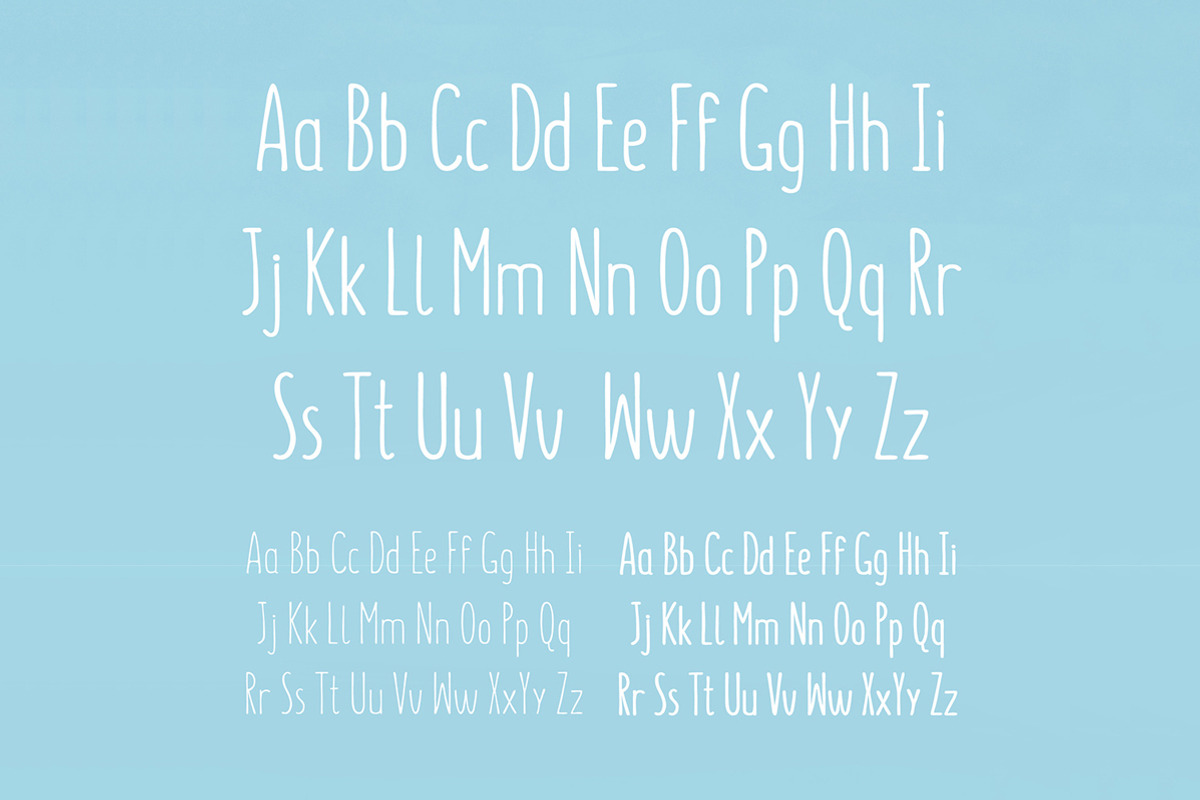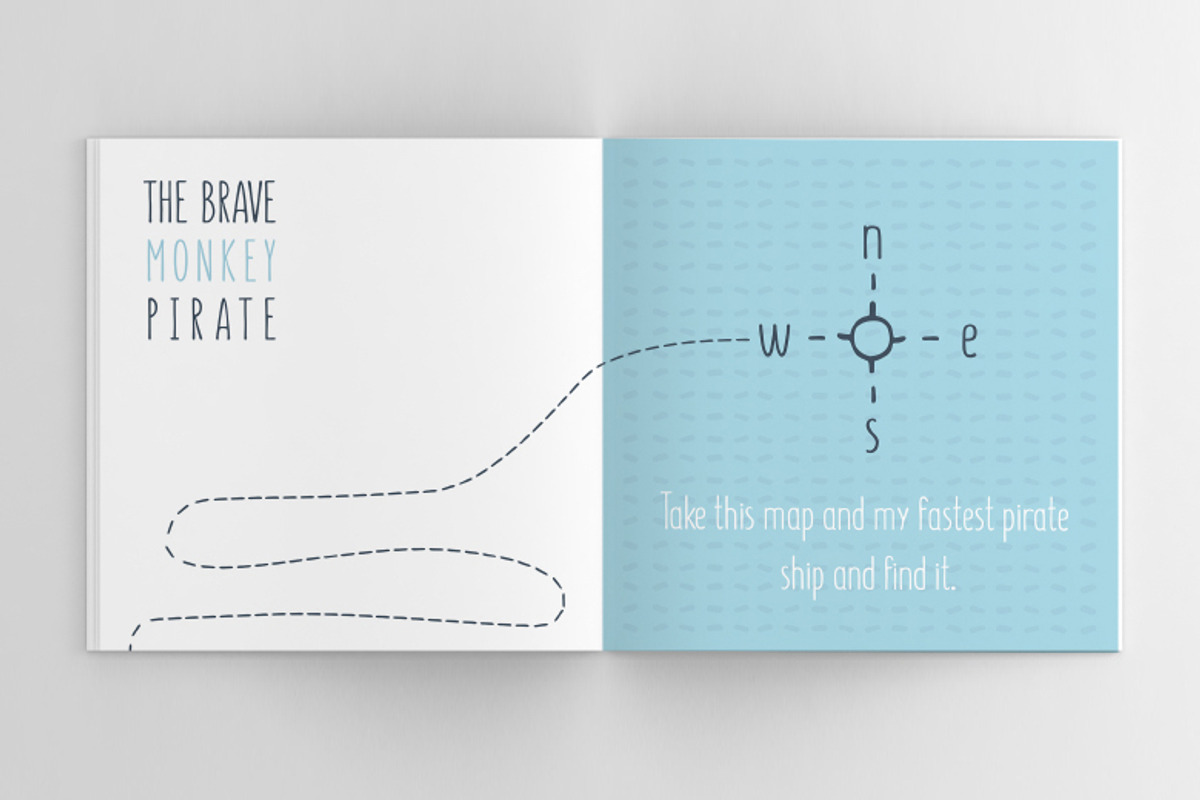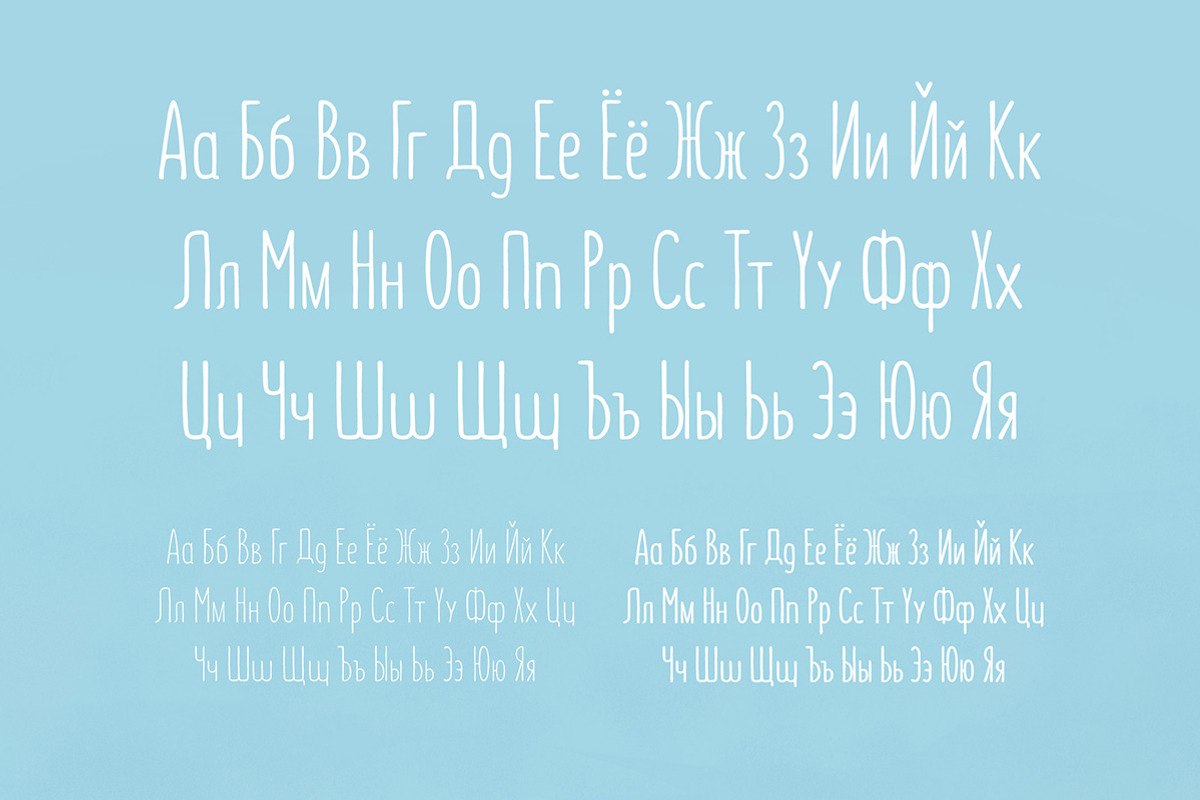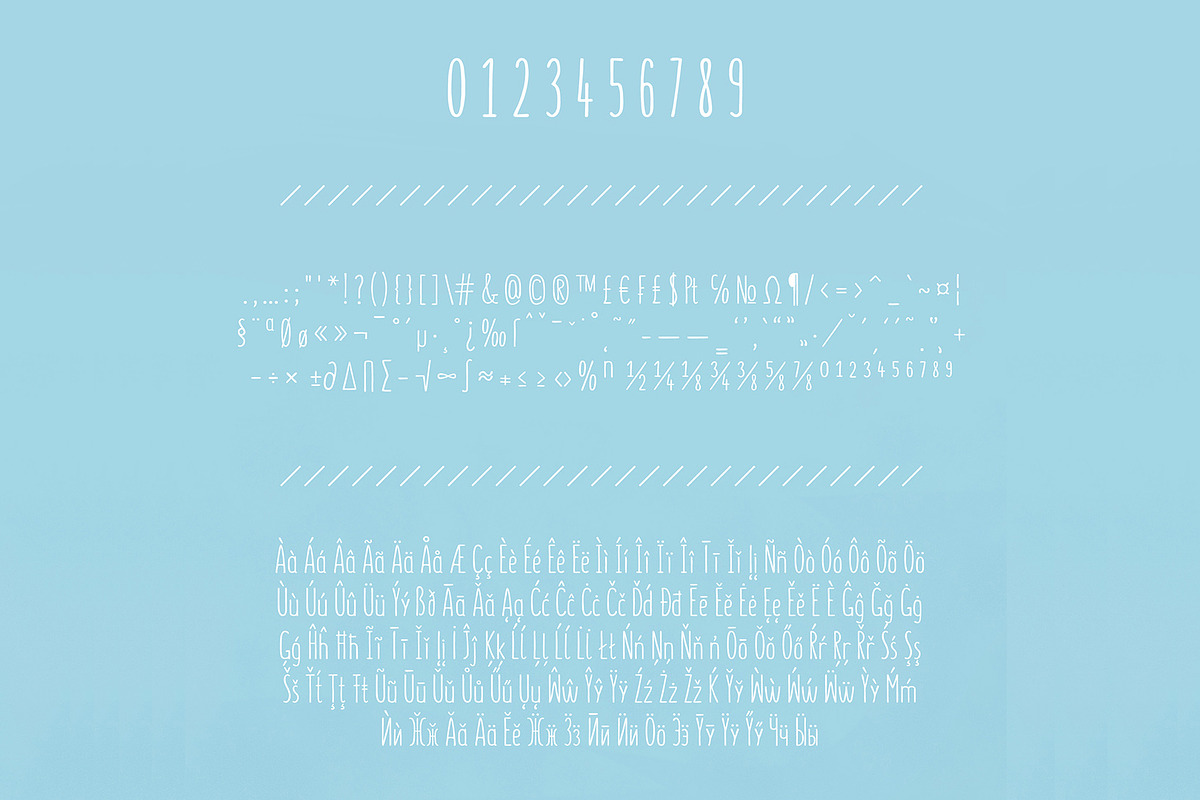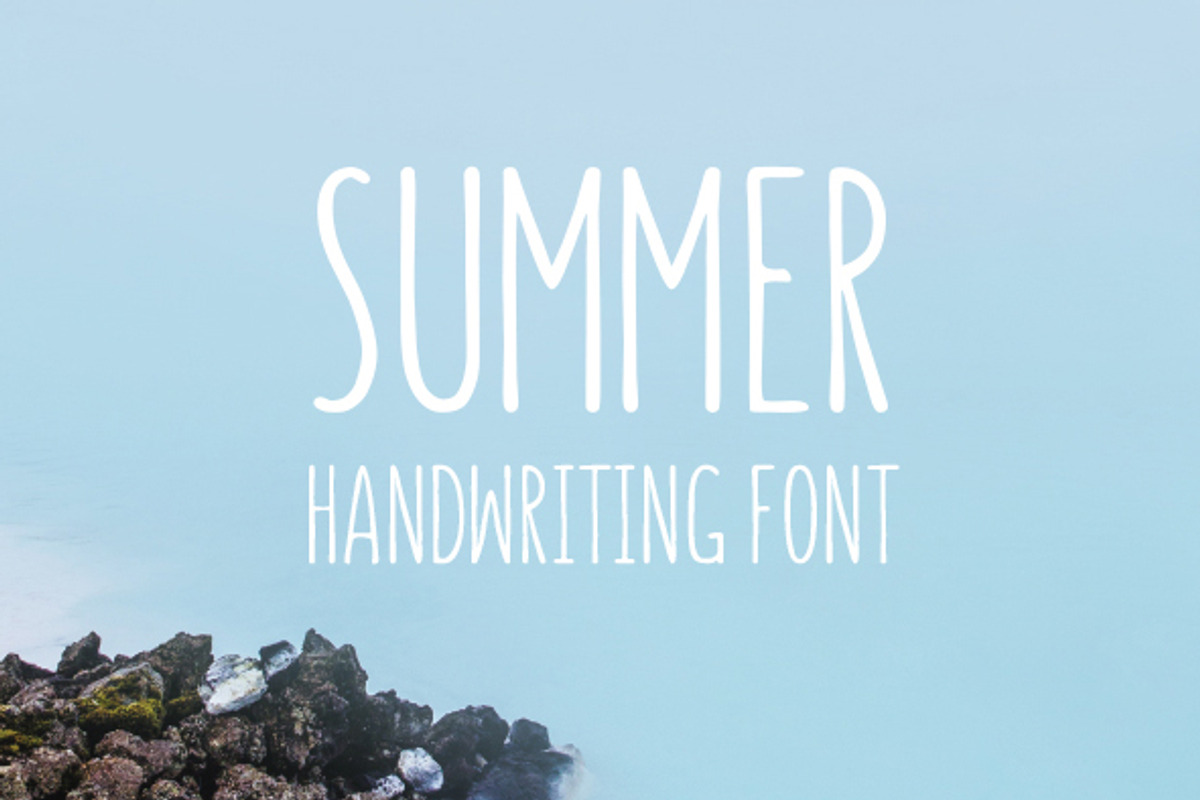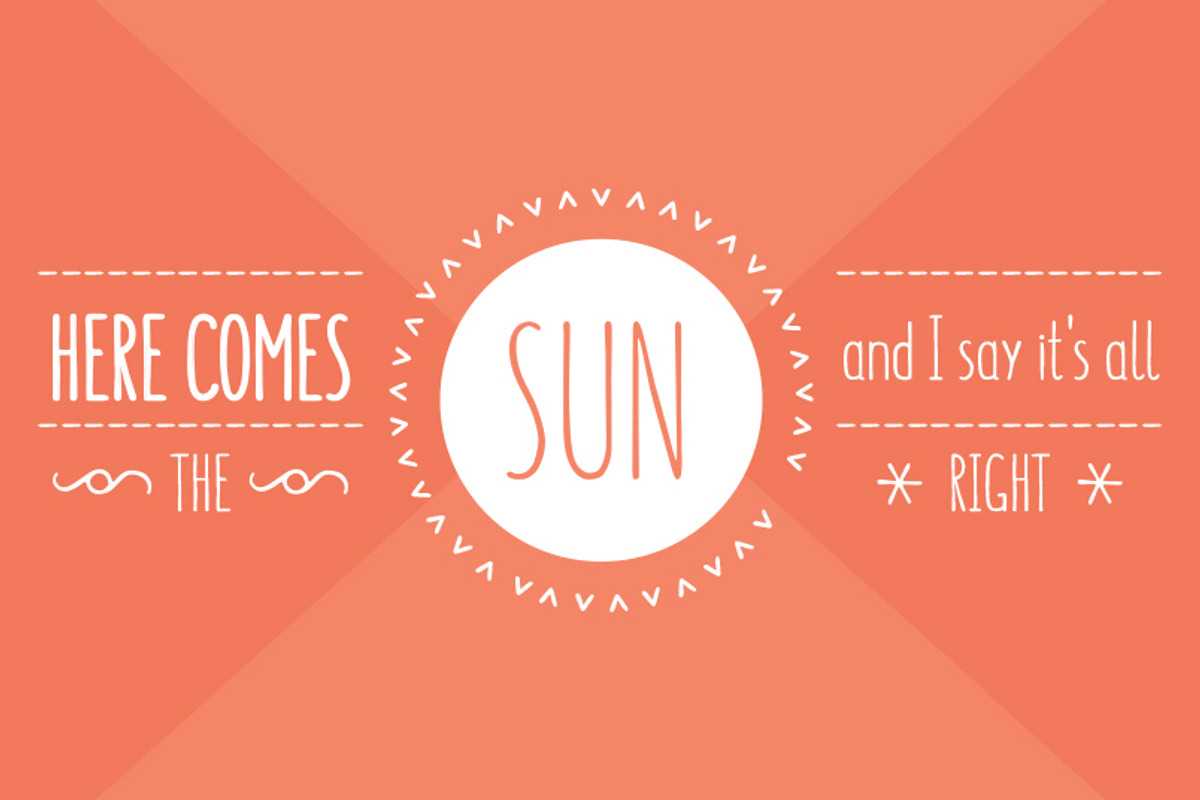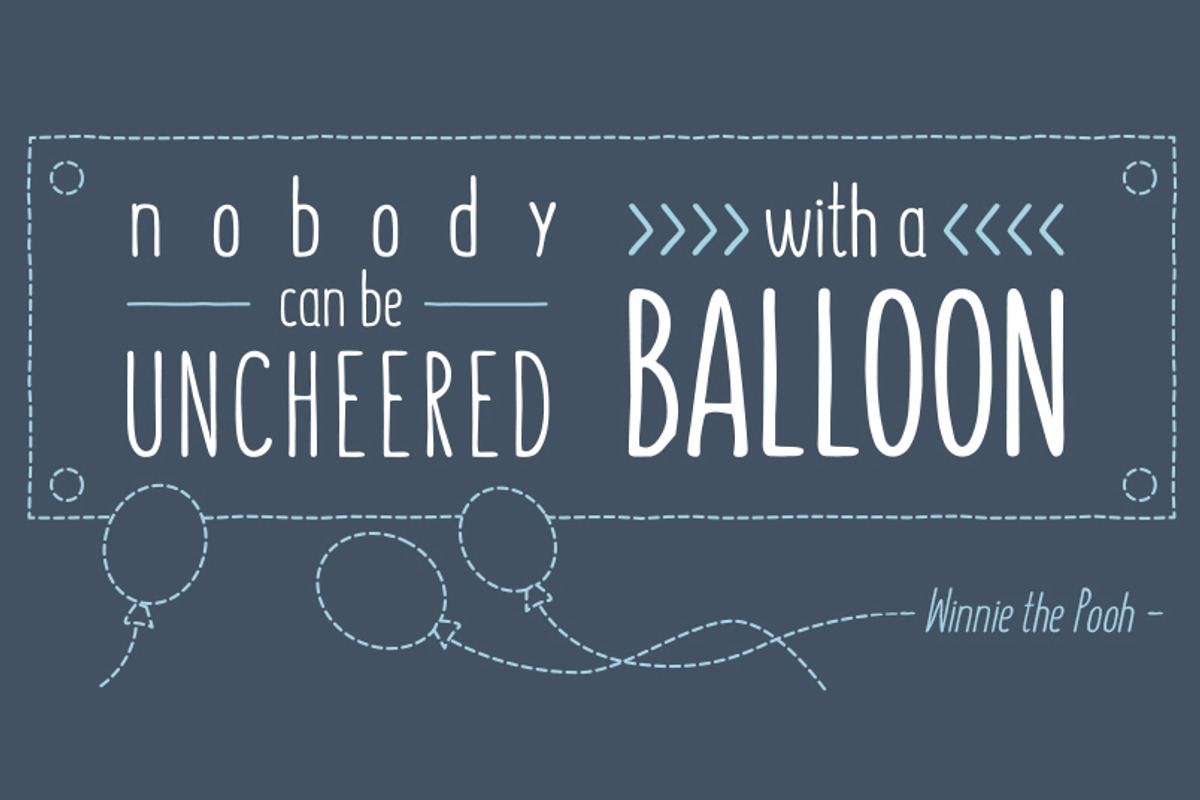
Summer Font
Summer Font by Wild Ones is a font selected for branding, posters, packaging, typography.
Why Summer Font is worth a look
Summer Font by Wild Ones fits naturally into Branding, posters, packaging, typography.